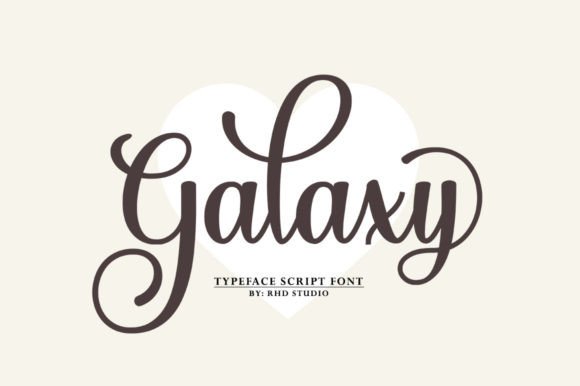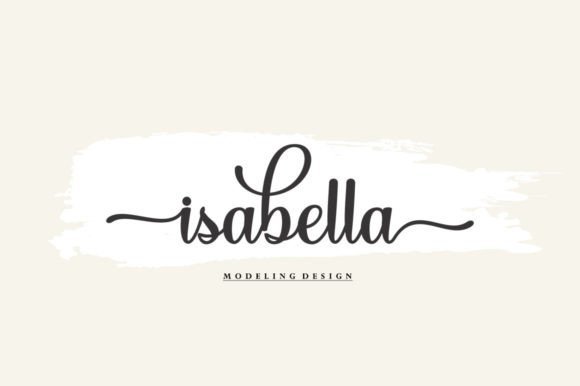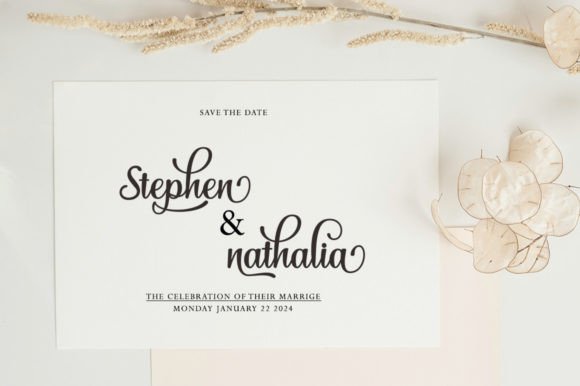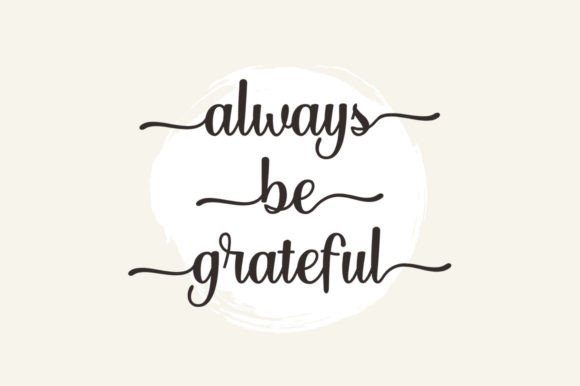
About Galaxy Font
Galaxy is a delicate and elegant handwritten font. Its distinct and well-balanced letters make this font a masterpiece. Fall in love with its incredibly versatile style and use it to create spectacular designs! This font is PUA encoded which means you can access all the glyphs and ligatures with ease!